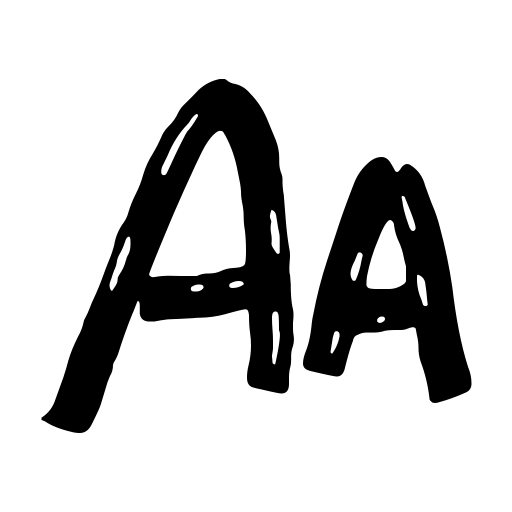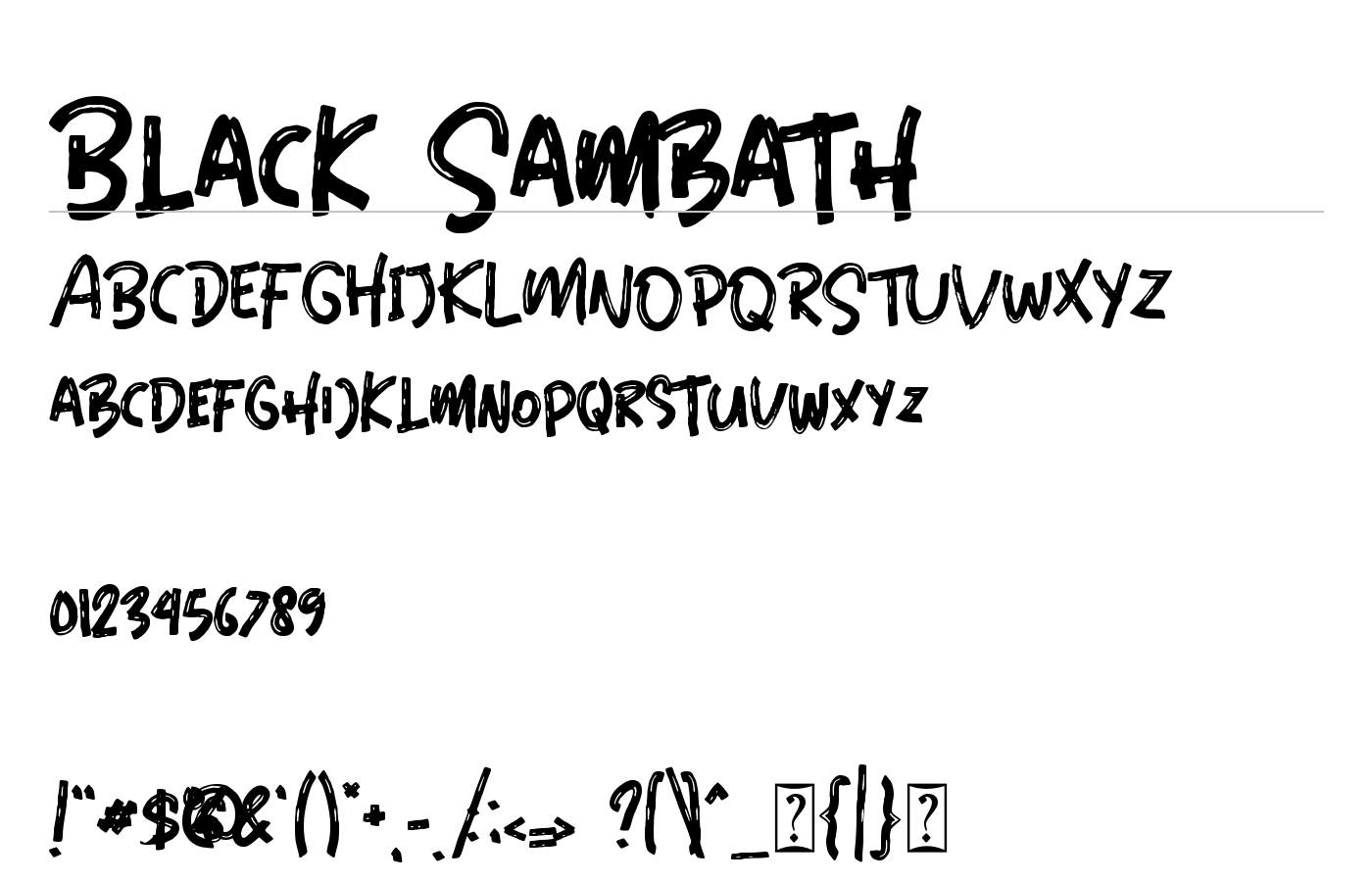
Black Sambath is a bold, playful handwritten font with irregular, energetic strokes that give it a lively and casual feel. Its uneven character shapes and varying line thicknesses create a dynamic, artistic style perfect for informal branding, creative projects, and eye-catching headlines. This font works well where a fun, expressive, and approachable vibe is needed.
Black Sambath Font
About Black Sambath Font
| Font family | Black Sambath Font |
| Designer | Lettersiro 2018 |